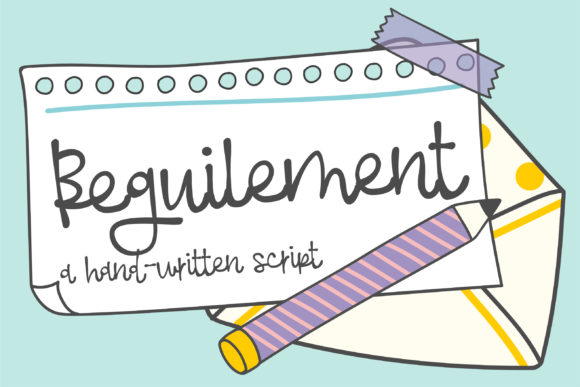
Beguilement Font: A Sweet and Flowing Handwritten Font
The Beguilement font is a beautiful, sweet, and flowing handwritten font that has captured the hearts of designers and typography enthusiasts alike. Its simple and well-balanced characters make it incredibly versatile, fitting a wide pool of contexts, both formal and non-formal. In this article, we’ll dive into the world of Beguilement font, exploring its features, uses, and benefits.
What is Beguilement Font?
Beguilement font is a type of handwritten font that exudes a sense of elegance and sophistication. Its flowing lines and curves create a beautiful, organic feel that’s perfect for a wide range of design projects. The font’s simplicity and balance make it easy to read and understand, making it an excellent choice for body text, headings, and titles.
Features of Beguilement Font
The Beguilement font boasts several features that make it a standout in the world of typography. Some of its notable features include:
- Simple and well-balanced characters: Each character in the Beguilement font is carefully crafted to ensure perfect balance and harmony, making it easy to read and understand.
- Flowing lines and curves: The font’s flowing lines and curves create a beautiful, organic feel that’s perfect for designs that require a touch of elegance.
- Versatility: The Beguilement font is incredibly versatile, making it suitable for a wide range of design projects, from formal to non-formal contexts.
- Handwritten feel: The font’s handwritten feel adds a personal touch to designs, making them more approachable and relatable.
Uses of Beguilement Font
The Beguilement font is suitable for a wide range of design projects, including:
- Branding and logos: The font’s elegance and sophistication make it an excellent choice for branding and logo design.
- Wedding and event designs: The font’s flowing lines and curves create a beautiful, romantic feel that’s perfect for wedding and event designs.
- Packaging design: The Beguilement font is suitable for packaging design, adding a touch of elegance and sophistication to product labels and packaging.
- Digital and print media: The font is perfect for digital and print media, including social media graphics, blog posts, and magazine articles.
Benefits of Using Beguilement Font
Using the Beguilement font offers several benefits, including:
- Unique and distinctive look: The font’s handwritten feel and flowing lines create a unique and distinctive look that sets it apart from other fonts.
- Improved readability: The font’s simplicity and balance make it easy to read and understand, improving readability and comprehension.
- Elegance and sophistication: The Beguilement font adds a touch of elegance and sophistication to designs, making them more visually appealing.
- Flexibility: The font’s versatility makes it suitable for a wide range of design projects, from formal to non-formal contexts.
How to Use Beguilement Font
Using the Beguilement font is easy and straightforward. Here are some tips to get you started:
- Choose the right size: Choose a font size that’s suitable for your design project. The Beguilement font is scalable, making it perfect for large and small designs.
- Pair with other fonts: The Beguilement font pairs well with other fonts, creating a beautiful and harmonious design.
- Experiment with colors: The font looks great in a variety of colors, from bold and bright to soft and pastel.
- Use it consistently: Use the Beguilement font consistently throughout your design project to create a cohesive and visually appealing look.
The Beguilement font is a beautiful, sweet, and flowing handwritten font that’s perfect for a wide range of design projects. Its simple and well-balanced characters make it incredibly versatile, fitting both formal and non-formal contexts. With its elegance, sophistication, and unique look, the Beguilement font is an excellent choice for designers and typography enthusiasts alike.
- What is the Beguilement font?: The Beguilement font is a sweet and flowing handwritten font with simple and well-balanced characters.
- Is the Beguilement font suitable for formal designs?: Yes, the Beguilement font is suitable for formal designs, such as branding, logos, and wedding designs.
- Can I use the Beguilement font for digital media?: Yes, the Beguilement font is perfect for digital media, including social media graphics, blog posts, and magazine articles.
- Is the Beguilement font easy to read?: Yes, the Beguilement font is easy to read and understand, making it perfect for body text and headings.